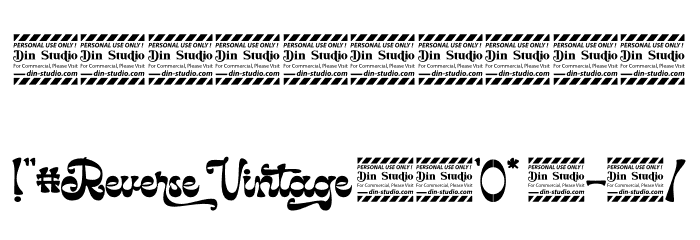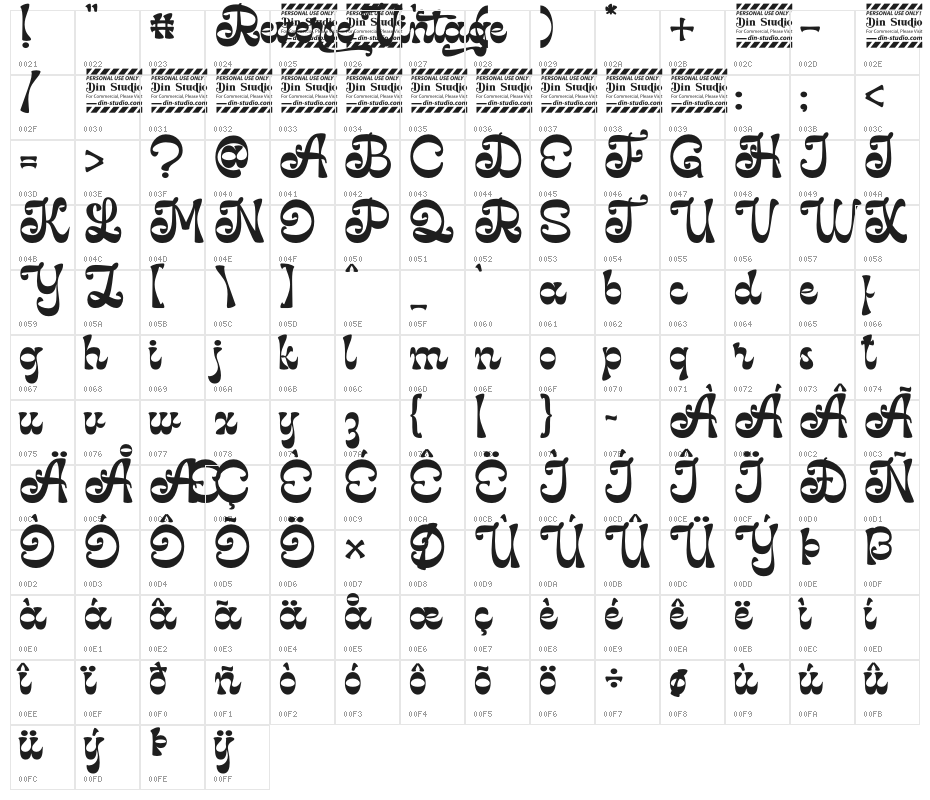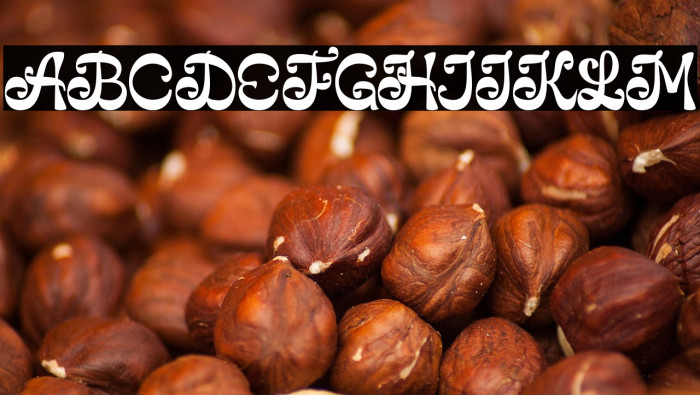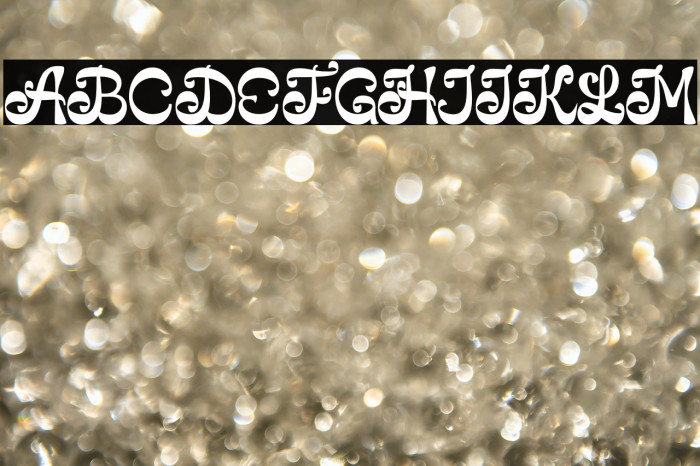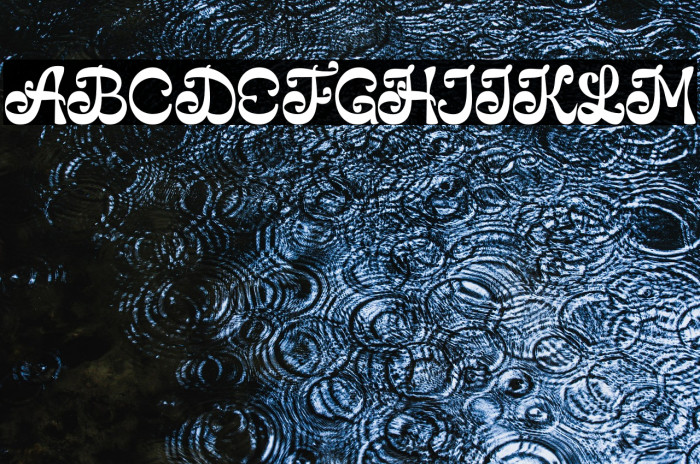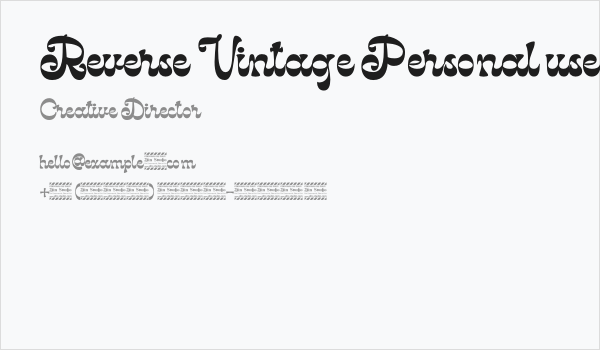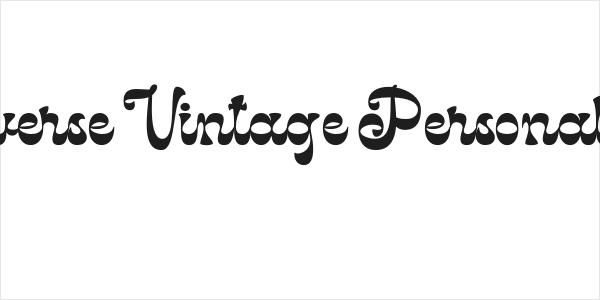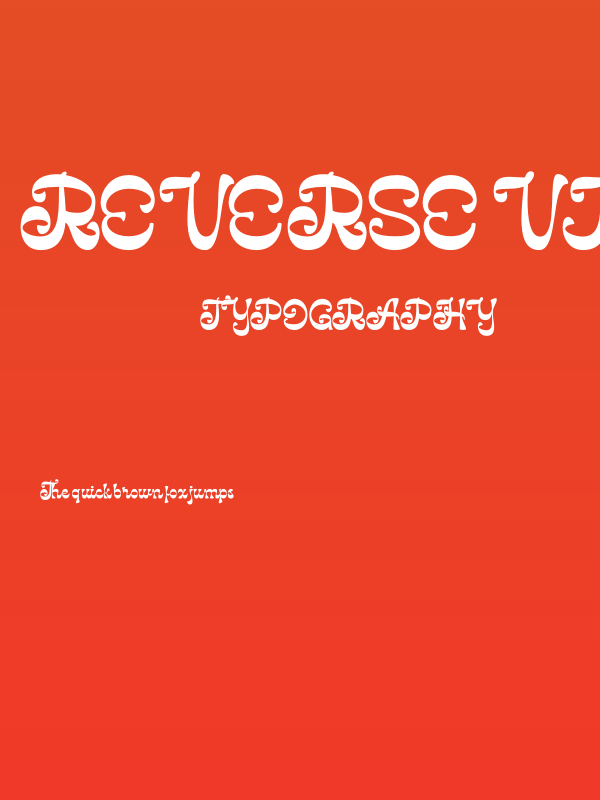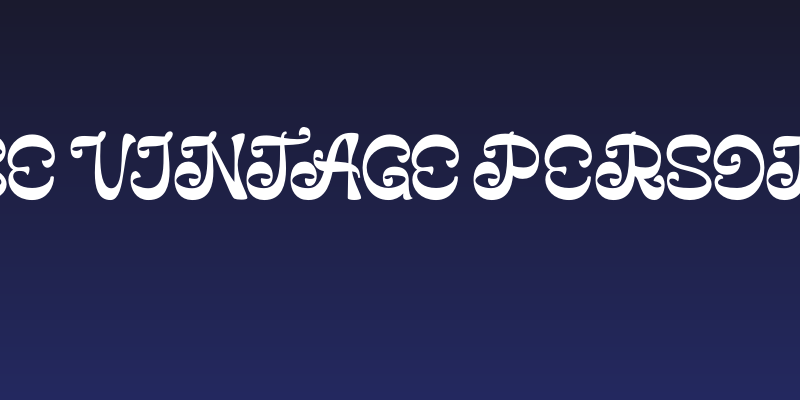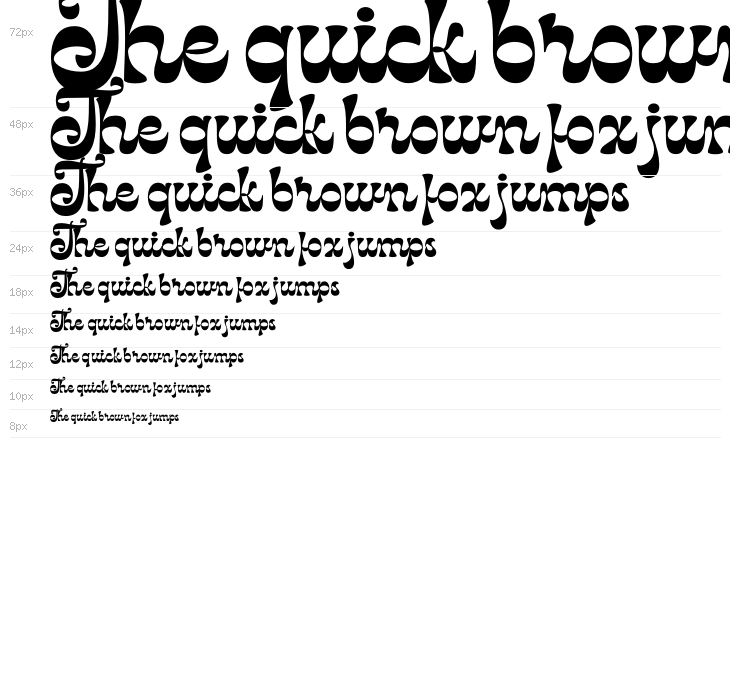
Reverse Vintage Personal use Font
Reverse Vintage Personal use Description
This font features a bold and decorative style with intricate swirls and loops that give it a unique, vintage appearance. The uppercase letters are particularly ornate, with exaggerated curves and flourishes that make each character stand out. The lowercase letters maintain a similar style, though they are slightly more subdued, allowing for better readability. The numbers and special characters follow the same design principles, ensuring a cohesive look across all glyphs. This font's playful yet sophisticated design makes it ideal for projects that require a touch of elegance and nostalgia.
| Use Case | Headlines, Logos, Decorative text |
| Proposed Projects | Ideal for vintage-themed posters, branding, invitations, and decorative headlines. |